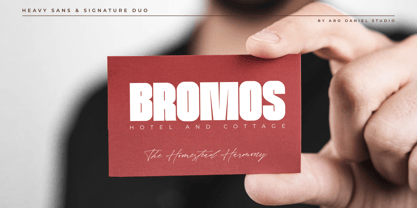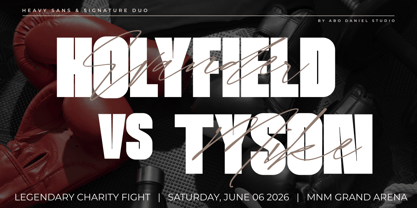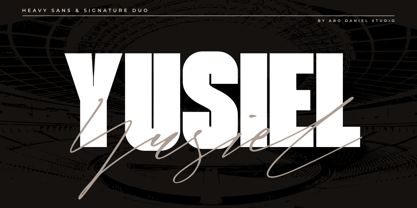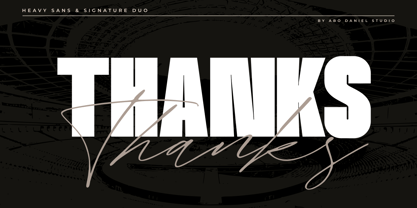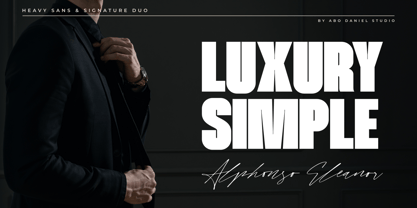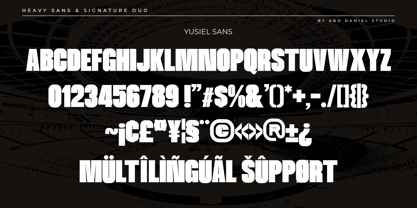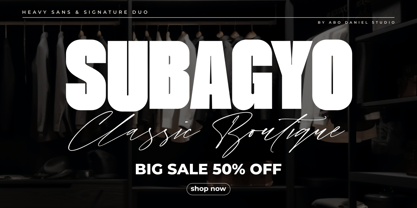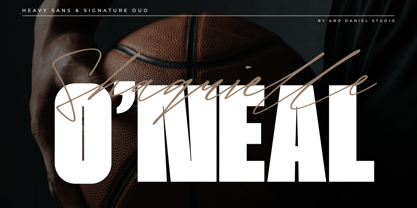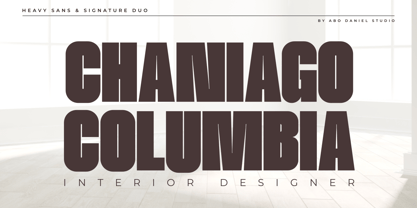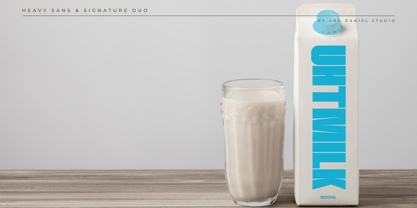
Yusiel Duo
by Abo Daniel
Yusiel is a versatile font duo that blends bold confidence with elegant personality. Featuring a powerful Heavy Sans and a flowing Signature Script, this typeface combination is designed to create eye-catching designs with a modern and stylish edge.
The Heavy Sans delivers a strong visual impact with its thick curves, condensed structure, and commanding presence — perfect for headlines, branding, posters, apparel, packaging, and editorial layouts. Paired with the graceful Signature style, Yusiel adds a personal and luxurious touch that feels effortless and authentic.
Whether you want to create bold statements or sophisticated branding, Yusiel gives you the flexibility to mix strength and elegance in one seamless type family.
Perfect for:
Branding, logos, social media, fashion projects, magazine titles, product packaging, wedding designs, quotes, and modern typography creations.